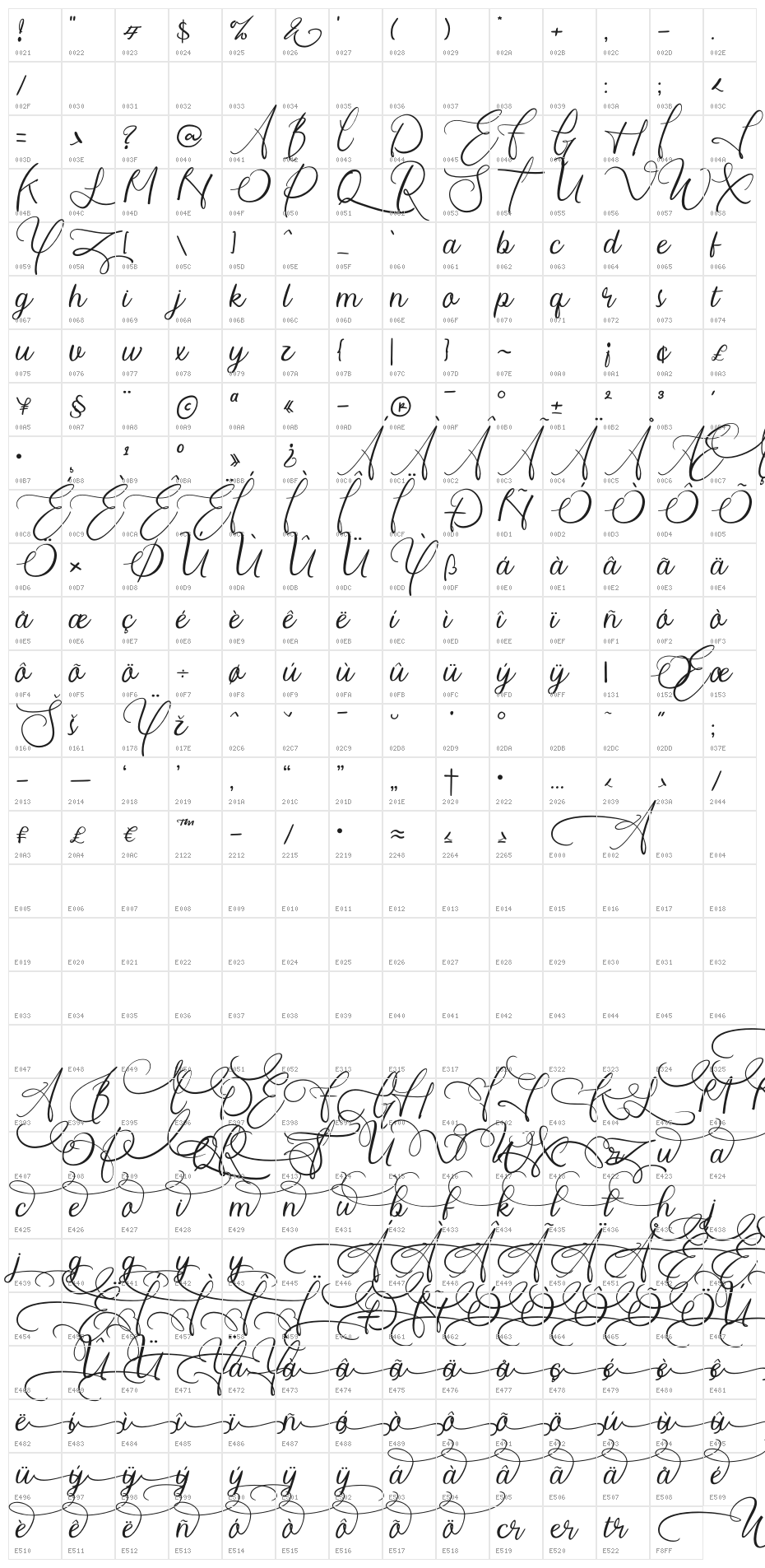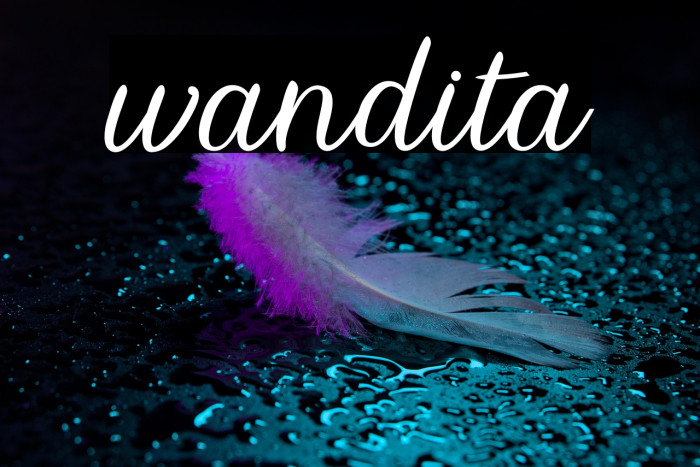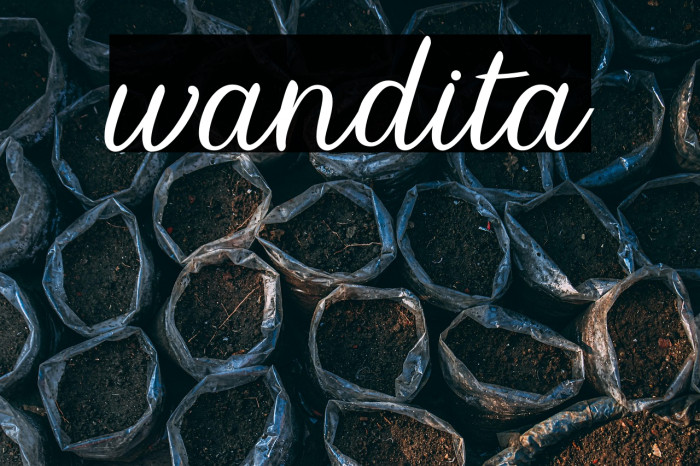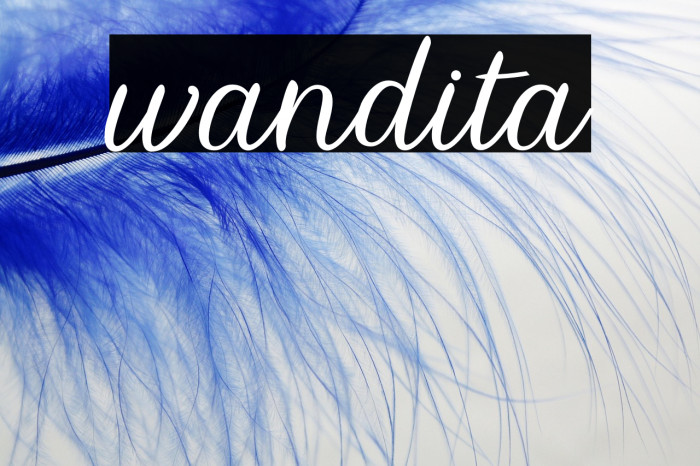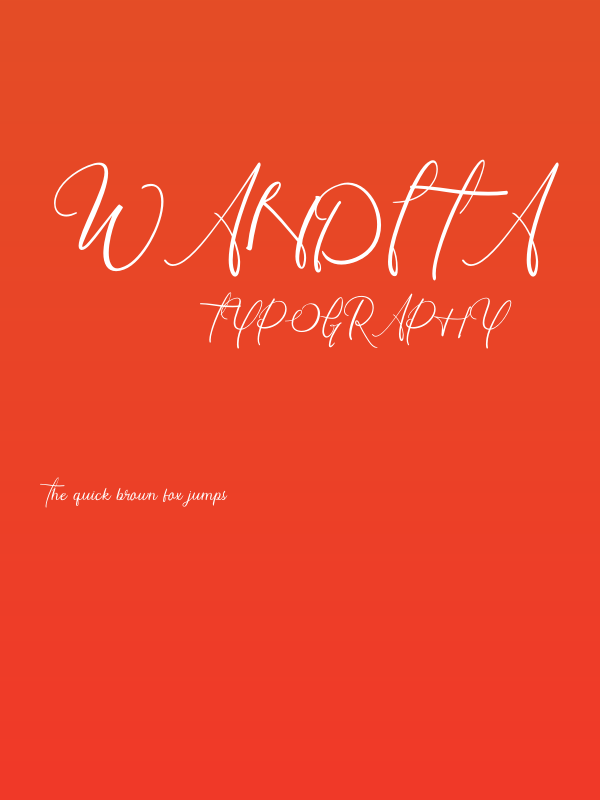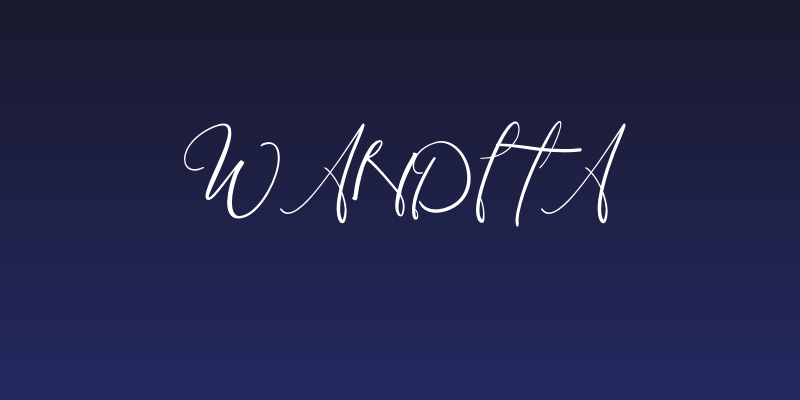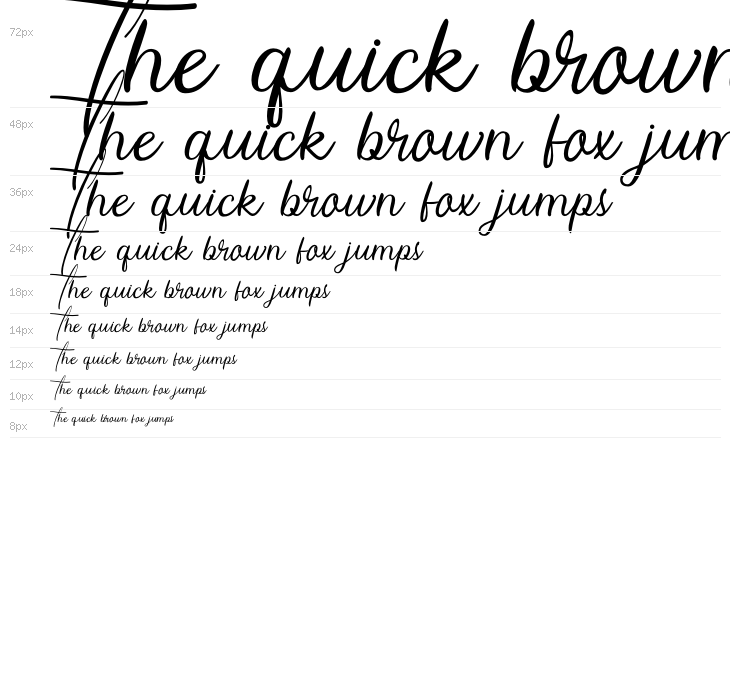
wandita Font
wandita Description
This font exudes elegance and sophistication, characterized by its flowing, cursive script style. The uppercase letters are ornate with intricate loops and flourishes, creating a sense of movement and grace. The lowercase letters maintain a consistent flow, with smooth curves and a slightly more restrained design compared to the uppercase. The numerals and special characters are designed to complement the overall script style, featuring similar loops and curves. This font is ideal for projects that require a touch of elegance and personal flair, such as invitations, branding, and decorative headings.
| Overall Style | Elegant, Decorative |
| Use Case | Headlines, Invitations, Branding |
| Proposed Projects | Ideal for wedding invitations, personal branding, decorative headings, and elegant stationery. |